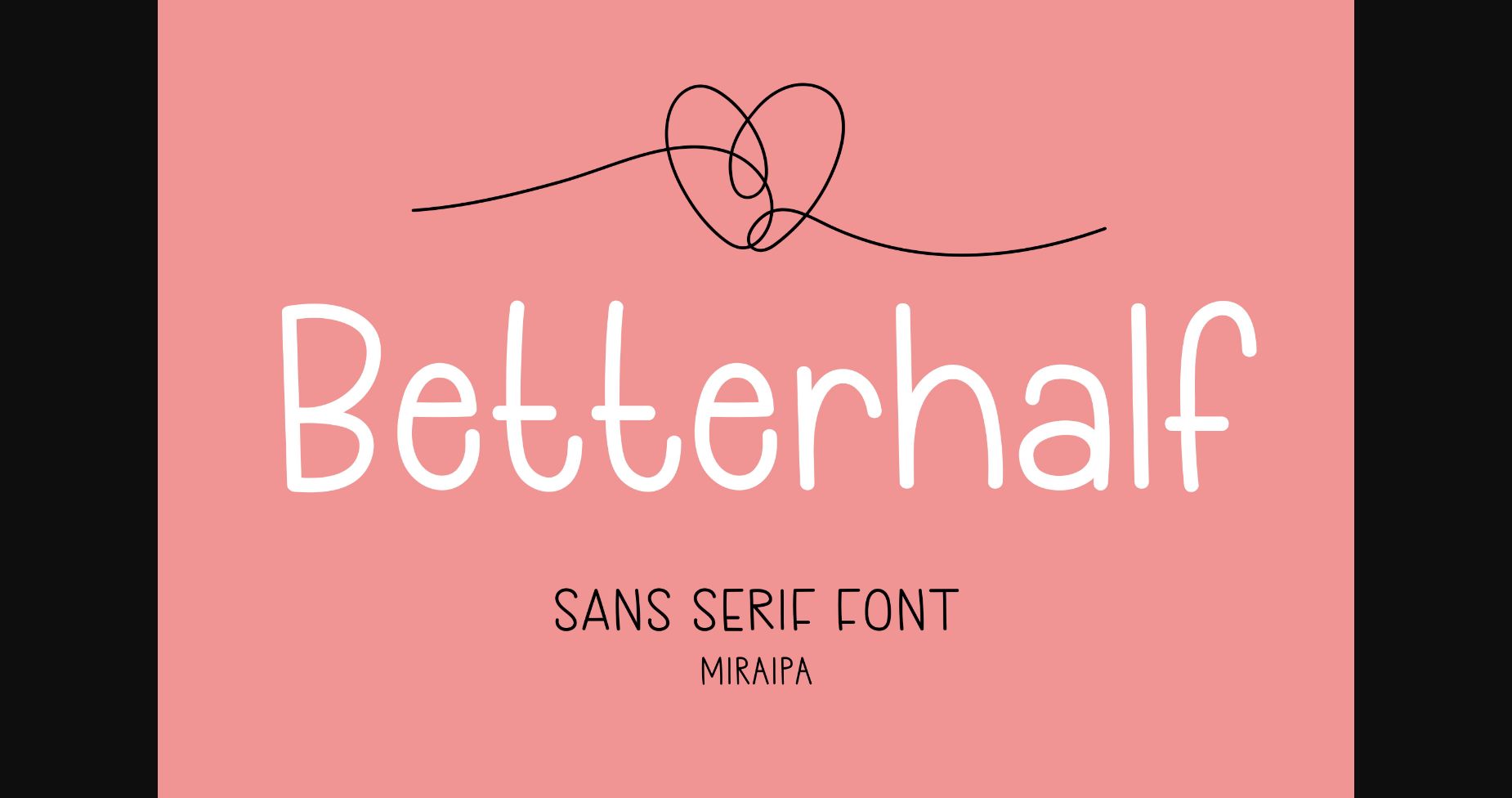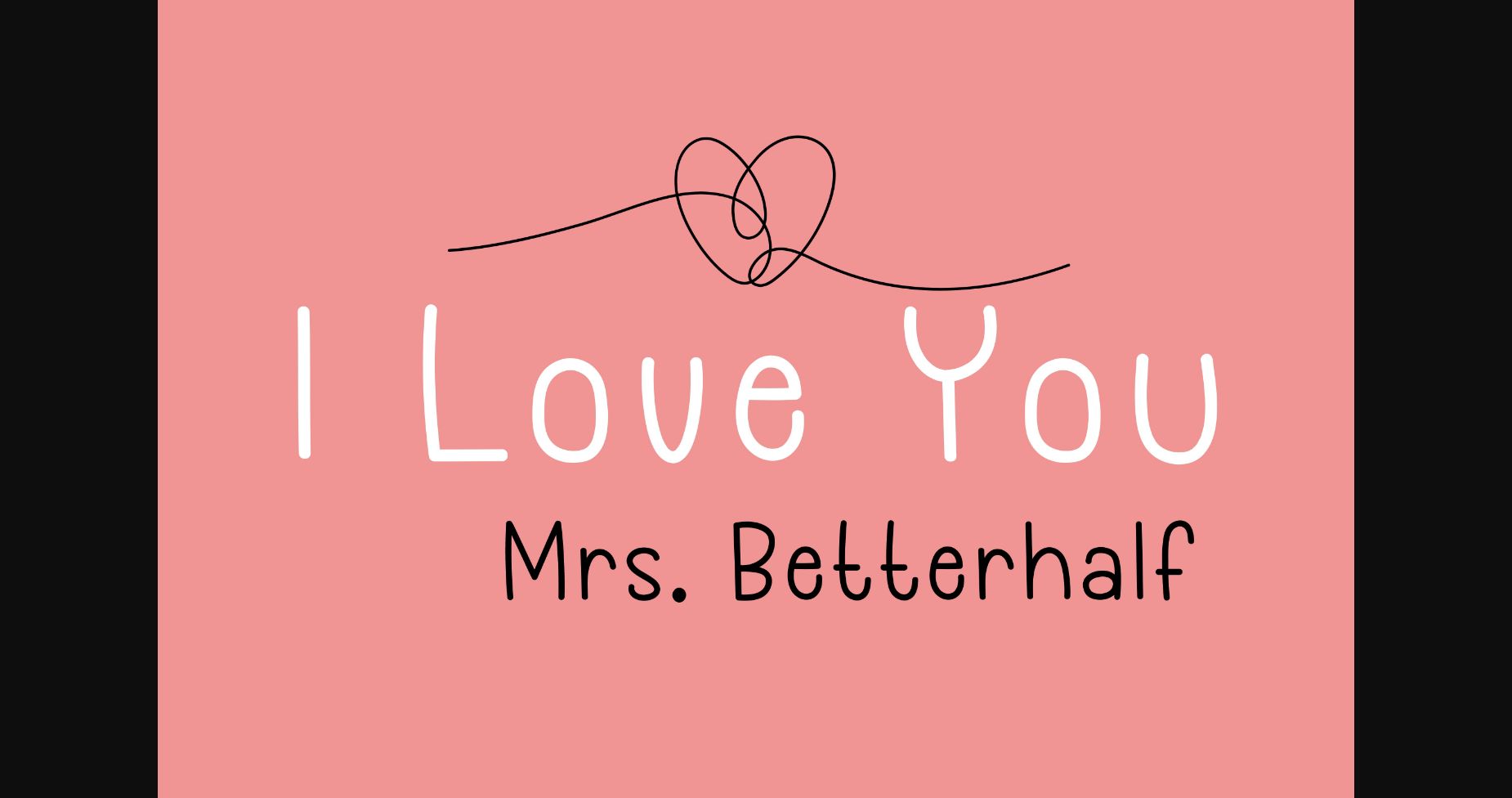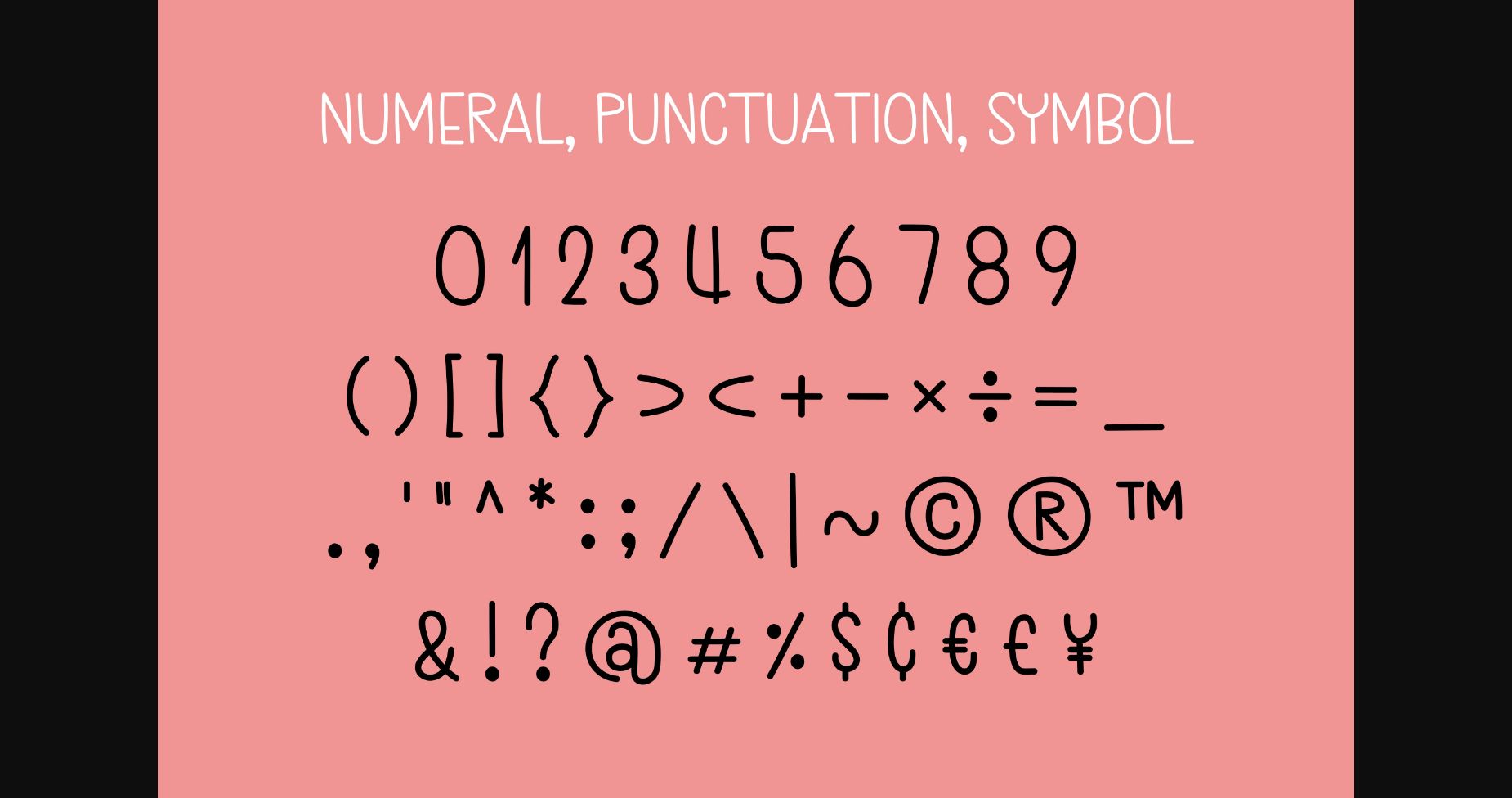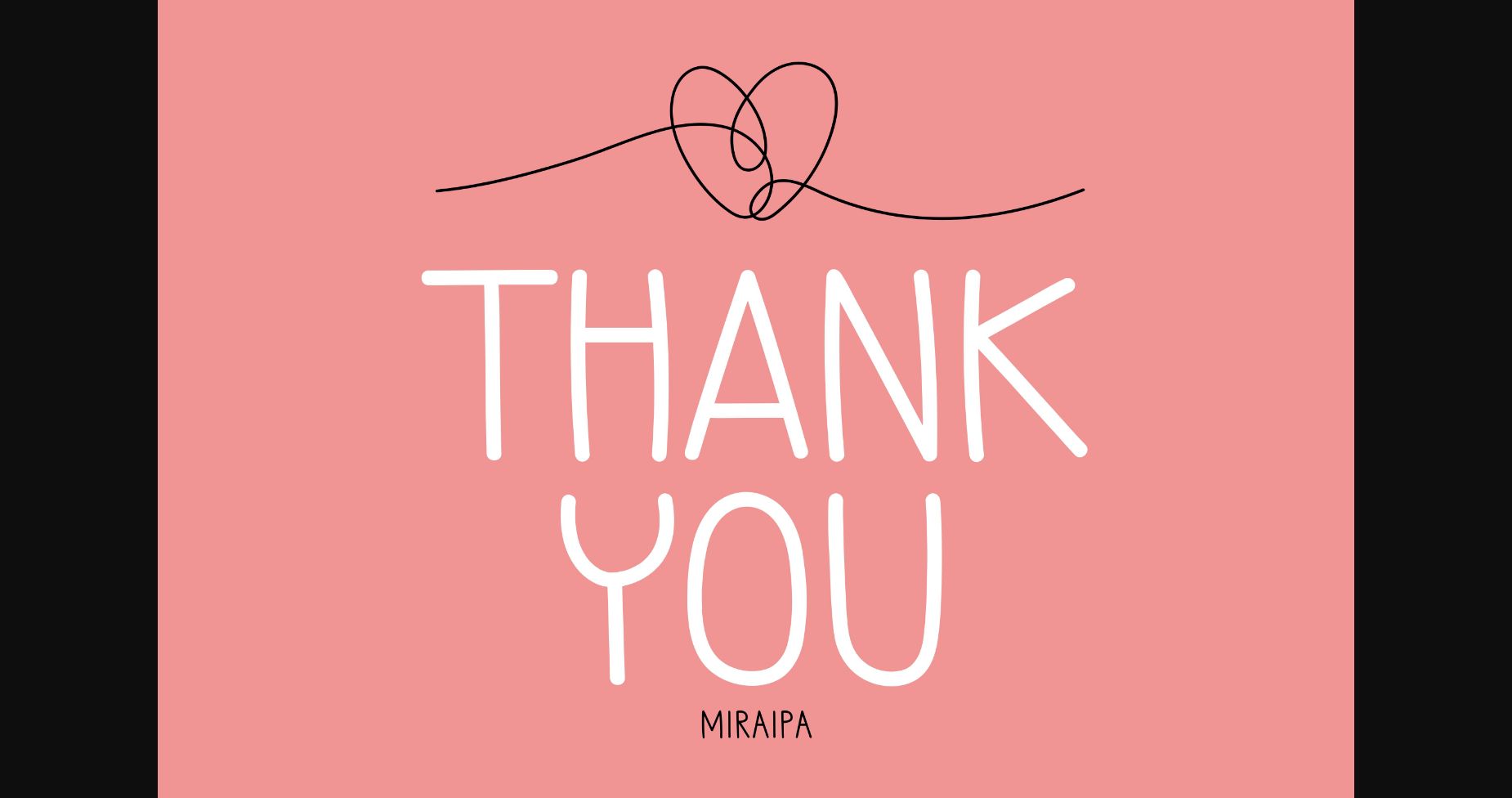
About Betterhalf Font
Betterhalf is designed in a cute and friendly handwritten sans serif font style. It would be perfect for your diary, planner, back-to-school projects, weddings, party decorations, invitations, Fall, Halloween, Christmas, posters, blogs, clothing, child-related designs, greeting cards, social media posts, or anything that needs a friendly touch. Add it now to your fonts library, and it will bring any of your DIY projects to life!